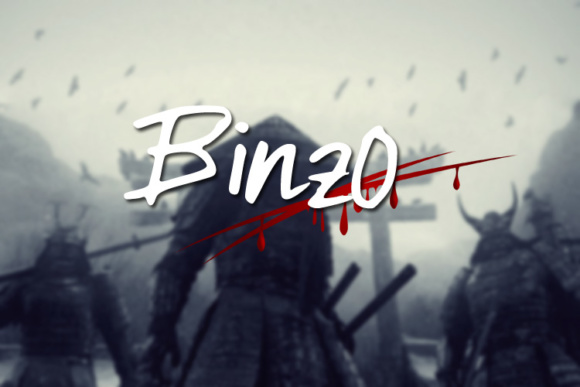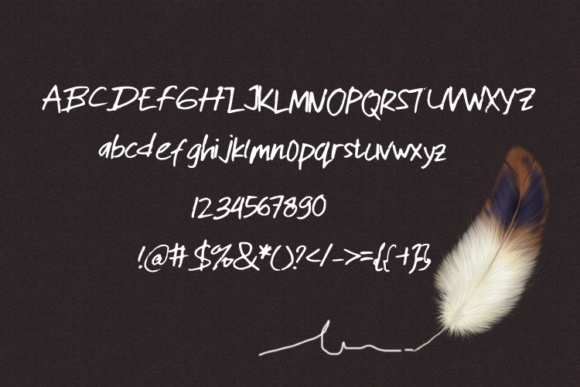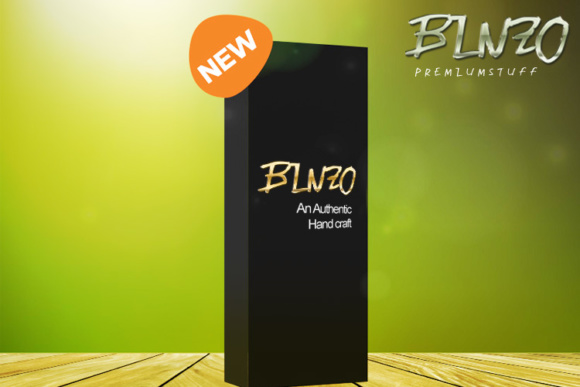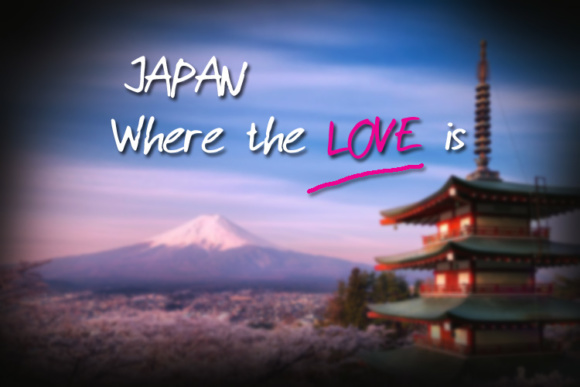
Binzo Font
About Binzo Font
Binzo is a hand crafted typeface. With is striking look and unique letters, Binzo will give your design an authentic feel.